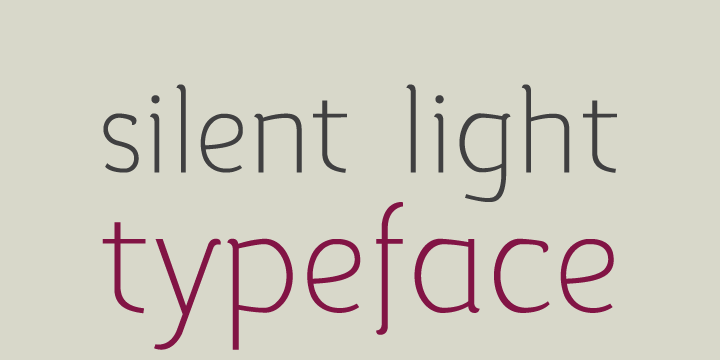
The Silent Font is excellent for meditation centers, mindfulness retreat branding, quiet library signage, peaceful spa materials, contemplative art galleries, whisper-quiet technology companies, serene wellness studios, and tranquil memorial services. This contemplative typeface works beautifully in applications where silence and peaceful reflection need to be emphasized, making it perfect for wellness organizations that want to communicate inner peace and thoughtful quietude through subtly elegant, minimally intrusive typography.
What makes Silent Font exciting is its hushed elegance and contemplative stillness that captures the essence of peaceful silence and meditative tranquility. The font's gentle letterforms and whisper-quiet character design create an atmosphere of serene reflection and spiritual calm, making it ideal for brands that want to promote mindfulness and create spaces for peaceful contemplation. Its tranquil presence ensures that every application feels like a moment of silence with genuine meditative authenticity and contemplative sophistication.
The Silent Font family typically includes ultra-light, light, and regular weights, often featuring minimal elements, peaceful symbols, and contemplative design motifs that enhance its meditative appeal. Many versions include silence indicators, zen-inspired ornaments, and specialized characters that provide designers with comprehensive tools for creating authentic mindfulness design projects with genuine spiritual sophistication and peaceful excellence.
For designers working on projects that require meditative authenticity and peaceful credibility, Silent Font Free Download delivers exceptional contemplative appeal. Its ability to instantly communicate tranquility and mindful reflection makes it an invaluable choice for wellness brands, spiritual organizations, and any project requiring typography that embodies the power of silence, the beauty of peaceful contemplation, and the sophisticated appeal of mindful design and meditative tranquility.